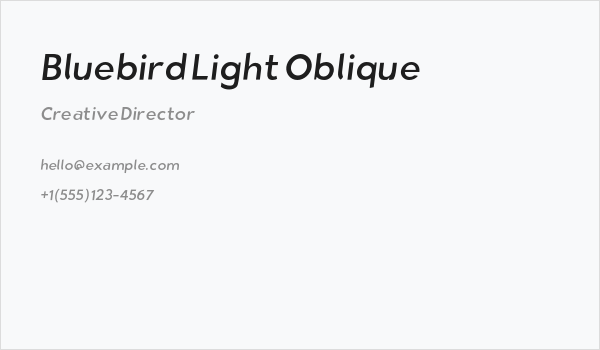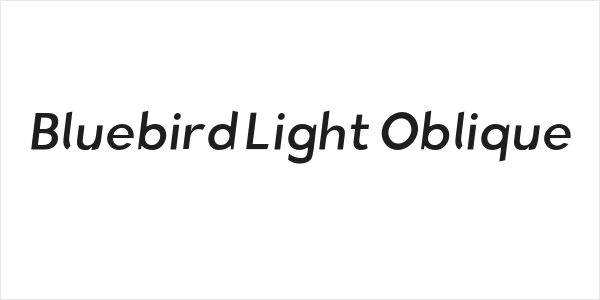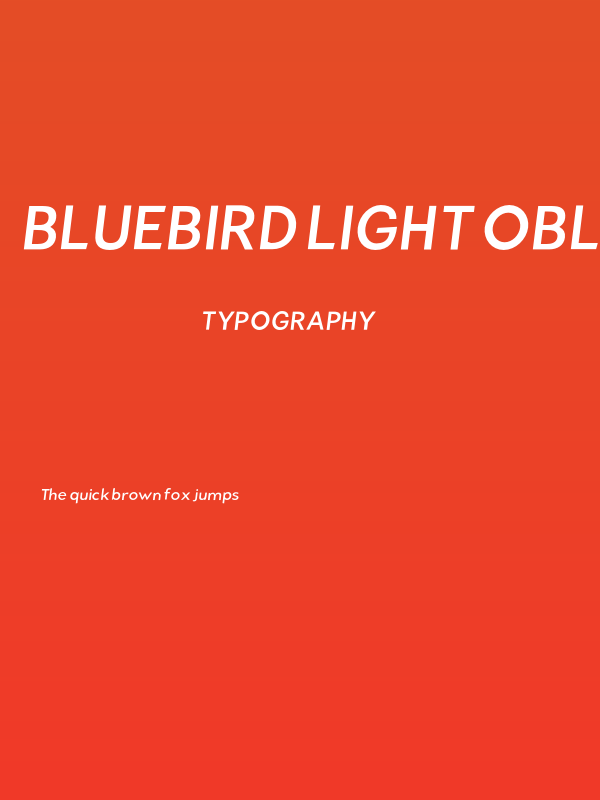
Bluebird Light Oblique Font
Bluebird Light Oblique Description
This font exhibits a sleek and modern design with a slightly oblique style, giving it a dynamic and forward-leaning appearance. The characters are clean and well-defined, with a consistent stroke width that maintains readability across various sizes. The uppercase and lowercase letters are proportionate, and the numerals are clear and distinct. Special characters are included, enhancing its versatility for different applications. The overall aesthetic is contemporary, making it suitable for a wide range of design projects.
| Proposed Projects | Ideal for branding, advertising, and digital media projects where a modern and dynamic look is desired. |